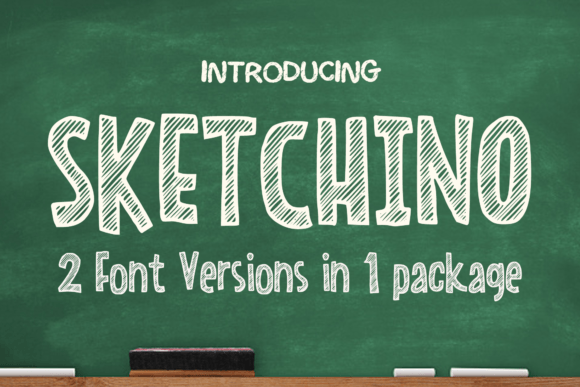
Unlock the playful charm of Sketchino, a captivating hand-drawn display font, crafted by the visionary minds at MVMET. Witness the fusion of artistry and versatility as Sketchino emerges as one of the Best Fonts For Web 2017. Lose yourself in its casual touch, perfect for unleashing your creativity in a world of t-shirts, book designs, restaurant menus, blog writing, greeting cards, and stickers. Let Sketchino be your muse, awakening your imagination to produce designs that demand attention, infusing personality and uniqueness into your projects.
Immerse yourself in the world of Sketchino, where playful strokes dance across your screen, weaving their magic into your designs. Its captivating style is a testament to the passionate artistry that went into its creation. With Sketchino, you hold the key to unlock a realm of possibilities, enabling you to craft designs that resonate with your audience, leaving an enduring impression.
Unleash your creativity and let Sketchino be your guide as you embark on a journey of design exploration. Its versatility knows no bounds, adapting effortlessly to a myriad of projects, ready to amplify your message with its infectious charm. Whether you're a seasoned designer or just starting your creative adventure, Sketchino is your perfect partner, igniting your imagination and transforming your ideas into tangible masterpieces.
Adorn your t-shirts with playful slogans, captivating quotes, or intricate illustrations, letting Sketchino bring your designs to life. Craft book covers that entice readers with their captivating titles, drawing them into a world of stories. Design restaurant menus that reflect the unique ambiance of your establishment, tantalizing taste buds with both culinary delights and visual appeal.
Sketchino is more than just a font; it's a gateway to creativity, an open invitation to unleash your inner artist. Seize this opportunity to elevate your designs, to create works that captivate and inspire. Let Sketchino ignite your passion and transform your design dreams into reality. Embrace its playful spirit and embark on a creative journey like no other.